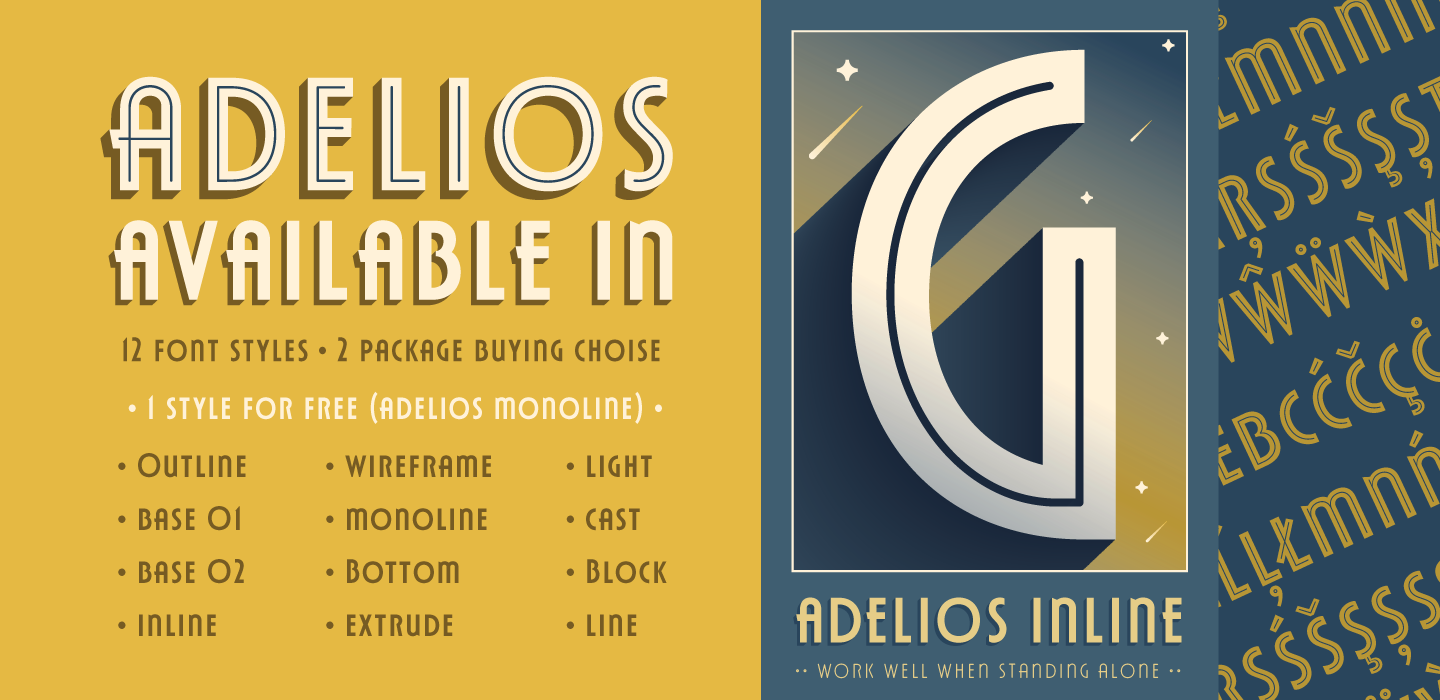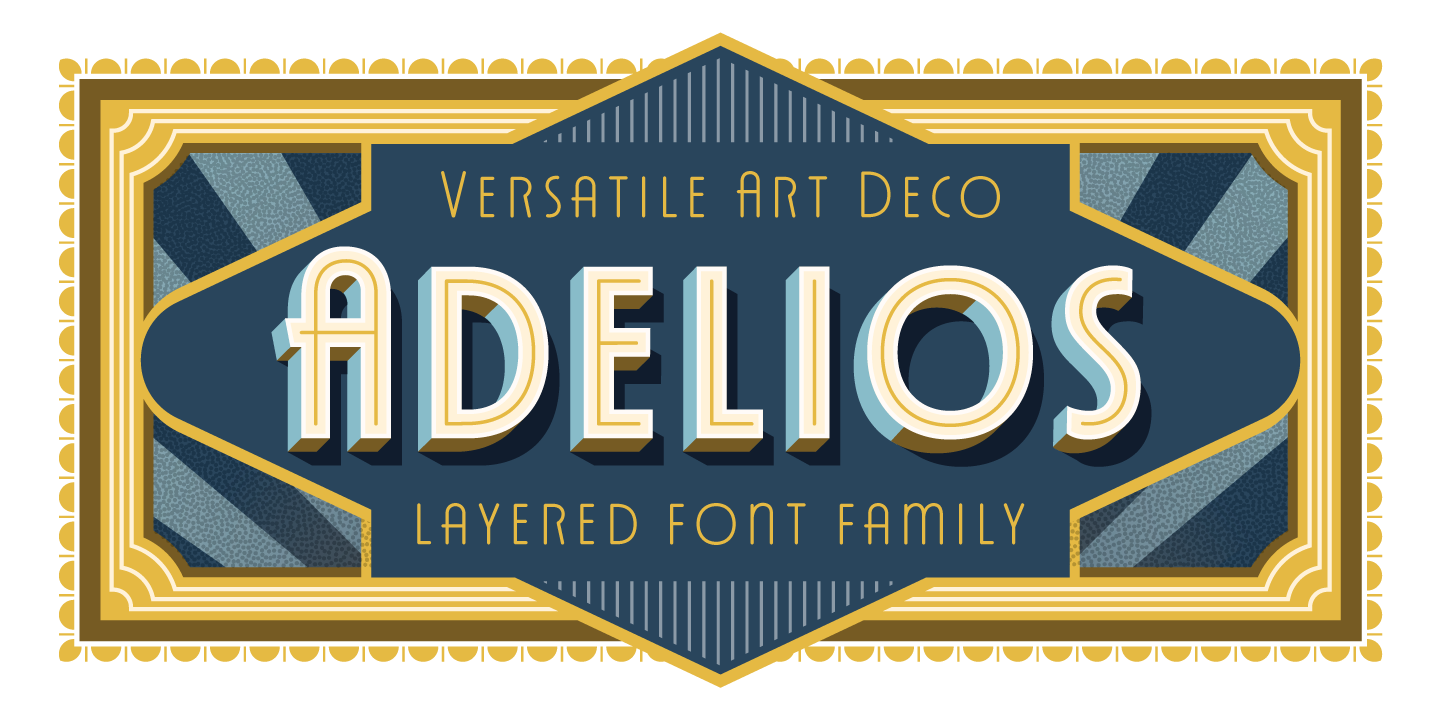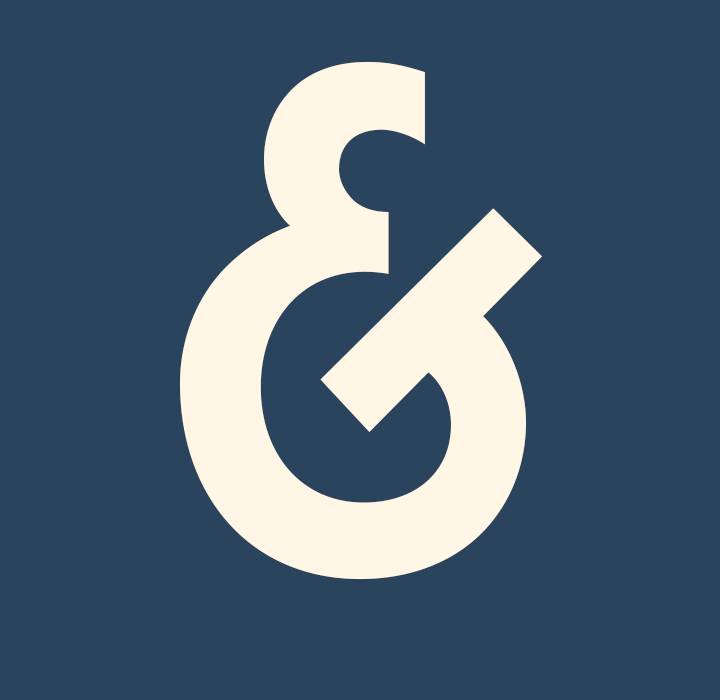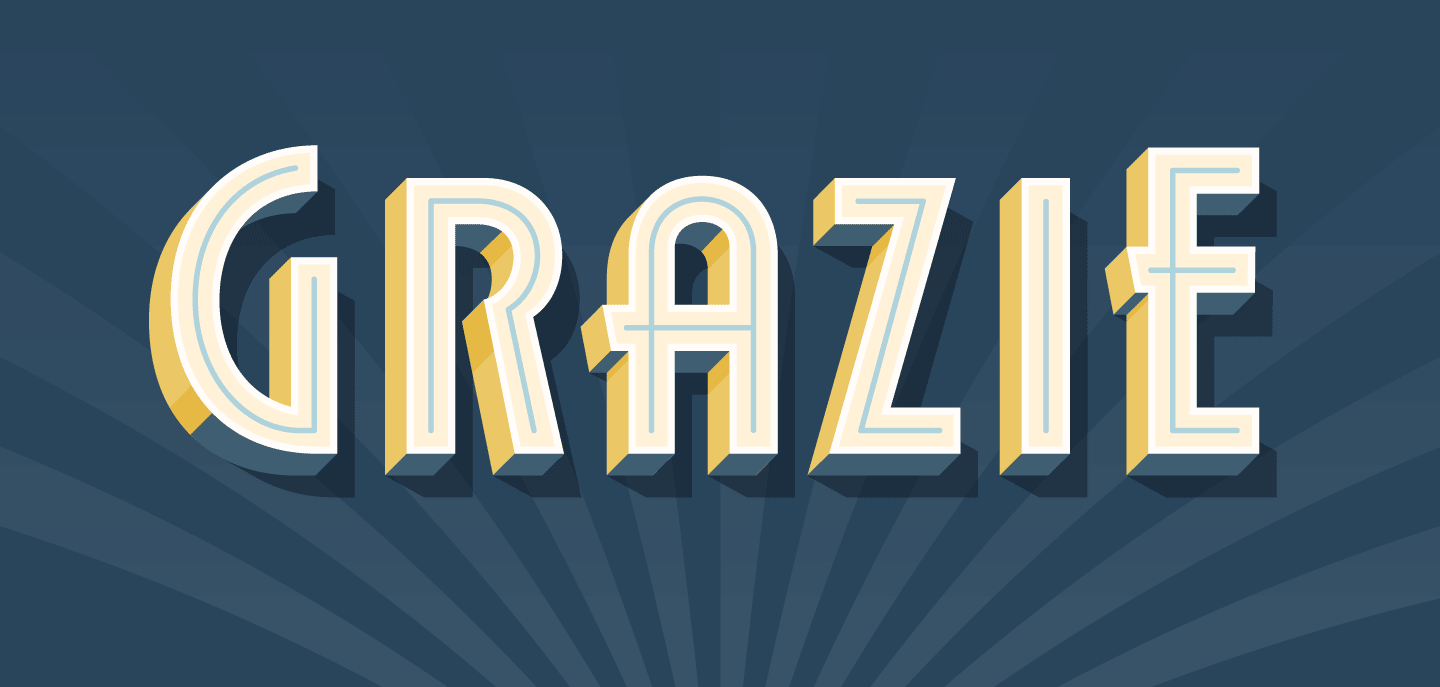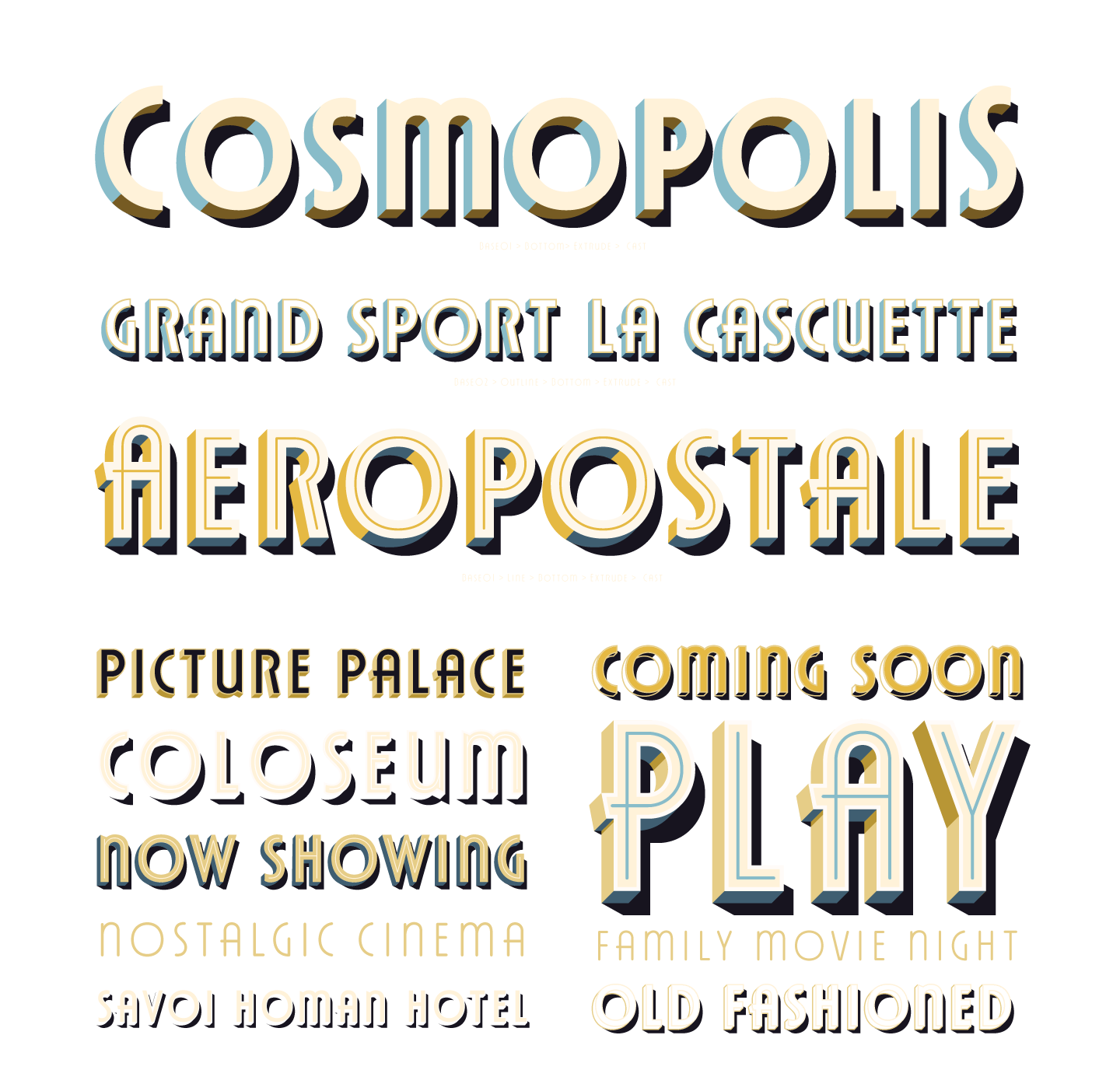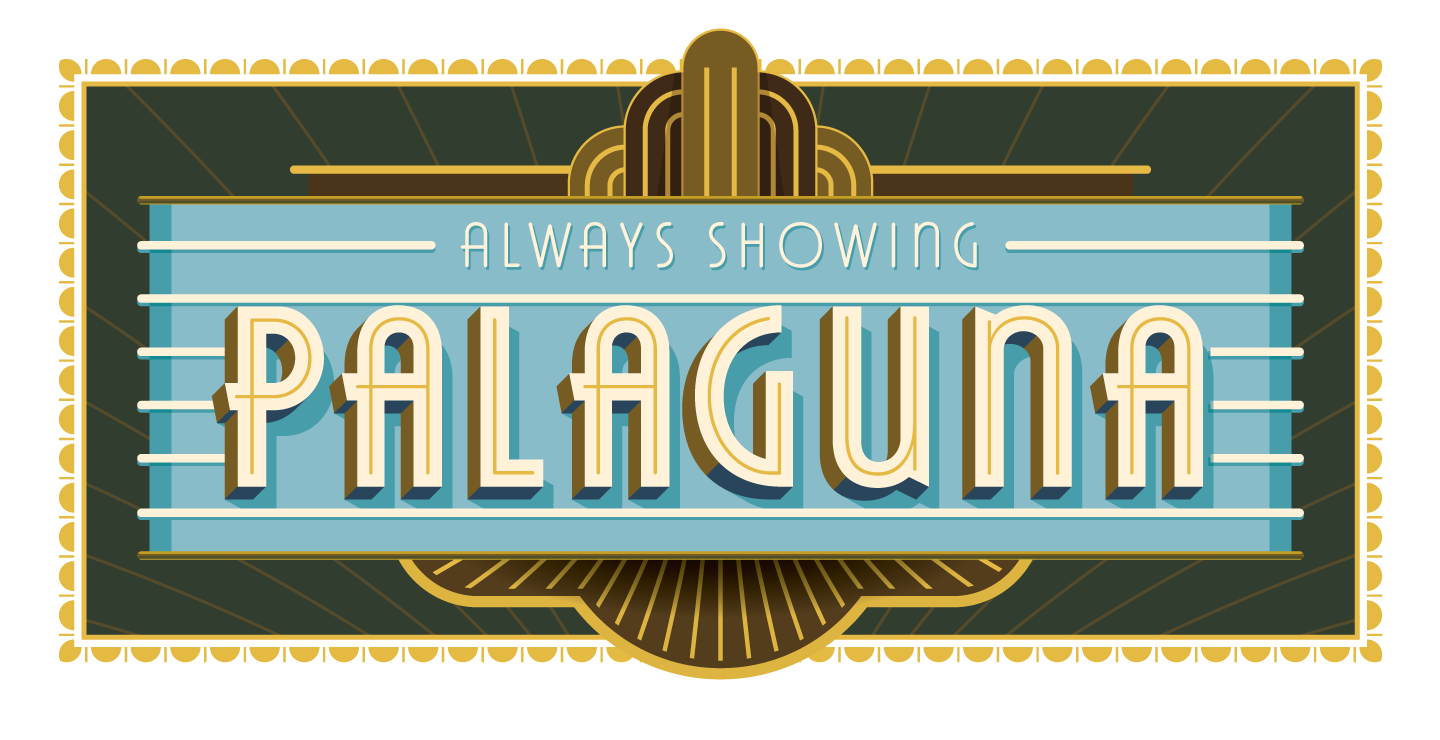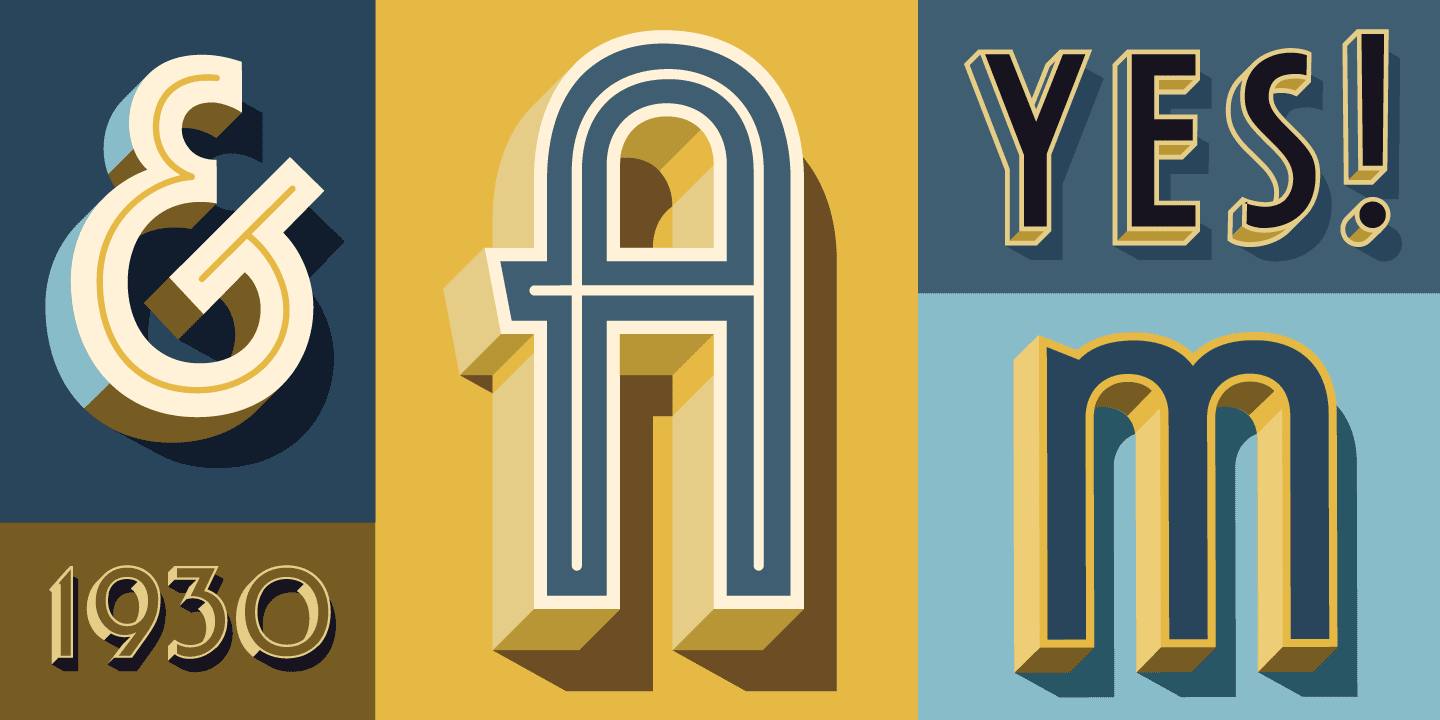
Adelios is a display typeface with 12 styles that can stand alone or with layering system. There are 6 styles that can stand alone: Outline, Base 01, Inline, Block, Wireframe, and Monoline, and also allows for mix and match to make this font more decorative by adding Outline, Extrude, Line, Cast, Light, Bottom.​​​​​​​
Traveling posters, movie theater sign, and Building art deco were the main inspiration for this font. Geometric and decorative shapes are the main characteristics of this font. This font is perfect for Headline, Poster, Signage, Menuboard, Greetingcard, etc.